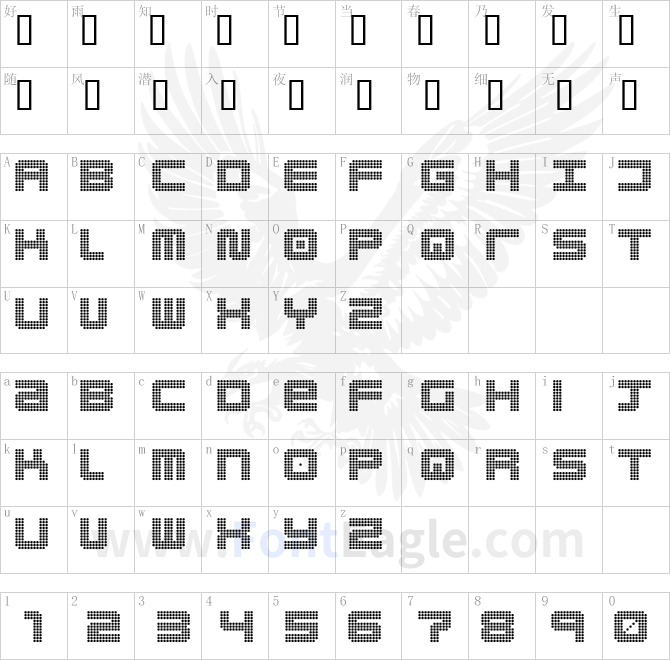
pizzo is a great font, widely used in graphic design, single-page menu design, poster design and other fields, and is deeply loved by designers.pizzo download.